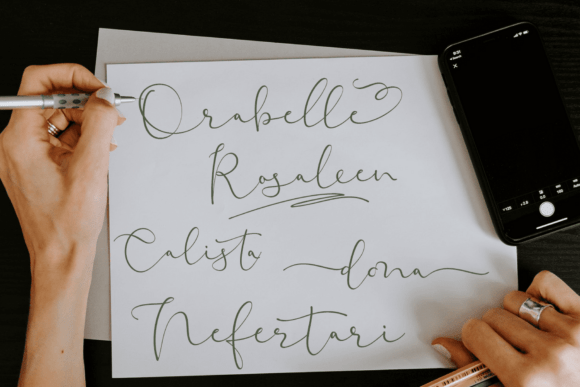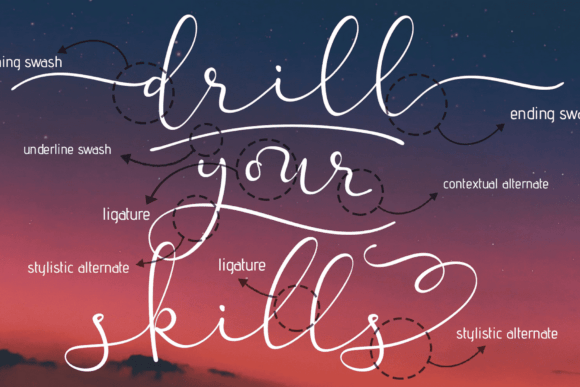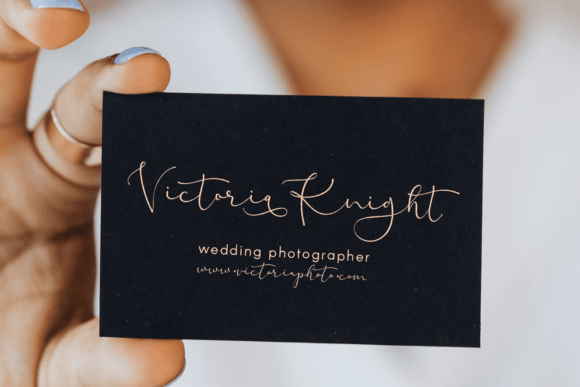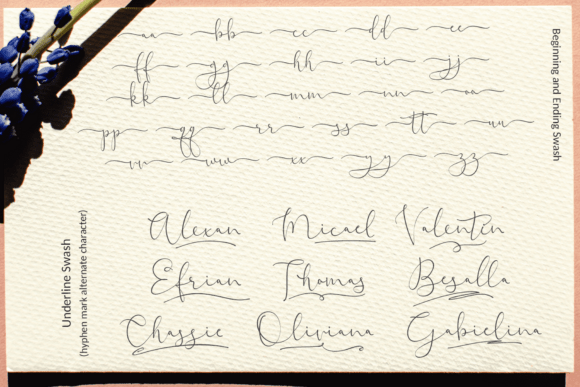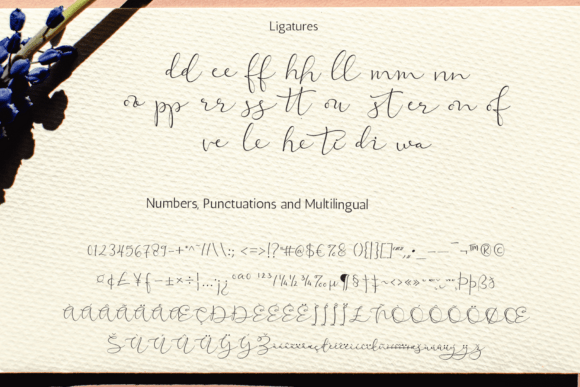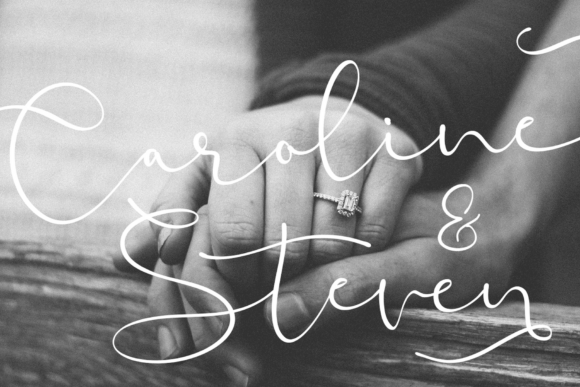
Blooming Valerian Font: Elevate Your Designs with Elegance and Sophistication
Are you searching for a font that exudes luxury, romance, and sweetness? Look no further than the stunning Blooming Valerian Font. This thin handwritten calligraphy font is designed to add a touch of elegance to any design project, making it perfect for crafters, designers, and anyone looking to create beautiful visual content.
What Makes Blooming Valerian Font So Special?
Blooming Valerian Font boasts beautiful curves and slightly wide spacing, giving it an air of sophistication and refinement. The characters in this font dance along the baseline, creating a sense of movement and fluidity that is sure to captivate your audience. Whether you’re working on a branding project, wedding invitation, or social media graphics, Blooming Valerian Font is the perfect choice.
Key Features of Blooming Valerian Font
- Uppercase and Lowercase Letters: The font includes both uppercase and lowercase letters, allowing you to create stunning text-based designs.
- Numbering and Punctuations: The font also includes numbering and punctuation marks, making it a versatile choice for a variety of design projects.
- Multilingual Support: Blooming Valerian Font supports multiple languages, making it a great choice for designers working on international projects.
- Ligatures: The font includes ligatures, which allow you to create beautiful connections between letters.
- Beginning and Ending Swashes: Add a touch of elegance to your designs with the font’s beginning and ending swashes.
- Underline Swashes: The font also includes underline swashes, giving you even more creative options.
- Stylistic Alternates: The font offers stylistic alternates, allowing you to experiment with different styles and variations.
The Benefits of PUA Encoding
Blooming Valerian Font is PUA (Private Use Area) encoded, which means you can access all the amazing glyphs and ligatures with ease. PUA encoding allows you to use the font’s advanced features, such as ligatures and swashes, without the need for complex software or technical expertise.
Blooming Valerian Font is a versatile choice for designers and crafters working on a wide range of projects, including:
- Branding and Logo Design: Create stunning logos and brand identities with Blooming Valerian Font.
- Wedding Invitations and Stationery: Add a touch of elegance and romance to your wedding invitations and stationery.
- Social Media Graphics: Create beautiful social media graphics, including Facebook posts, Instagram stories, and more.
- Packaging Design: Use Blooming Valerian Font to create eye-catching packaging designs that stand out on store shelves.
In conclusion, Blooming Valerian Font is a stunning handwritten calligraphy font that is sure to elevate your designs with elegance and sophistication. With its beautiful curves, slightly wide spacing, and advanced features, this font is perfect for designers and crafters working on a wide range of projects. Whether you’re looking to create a luxurious brand identity, romantic wedding invitation, or eye-catching social media graphic, Blooming Valerian Font is the perfect choice.